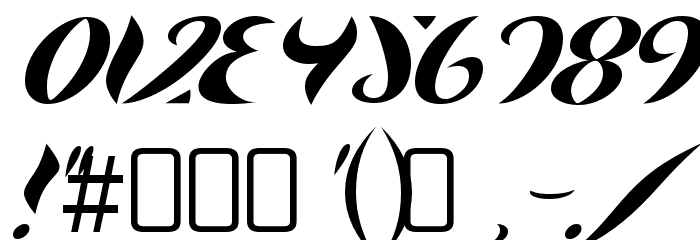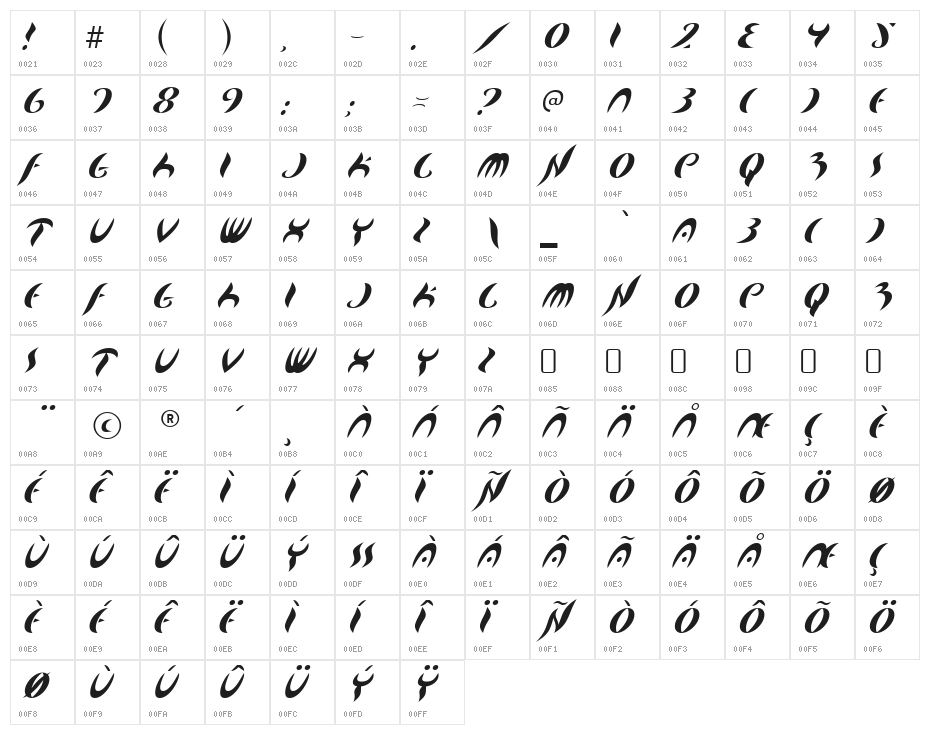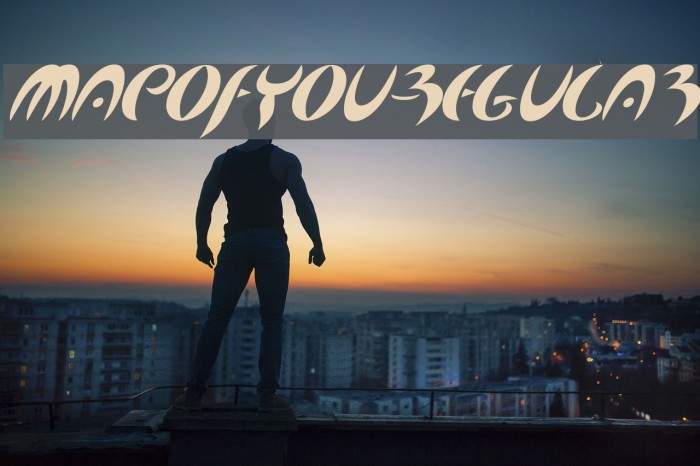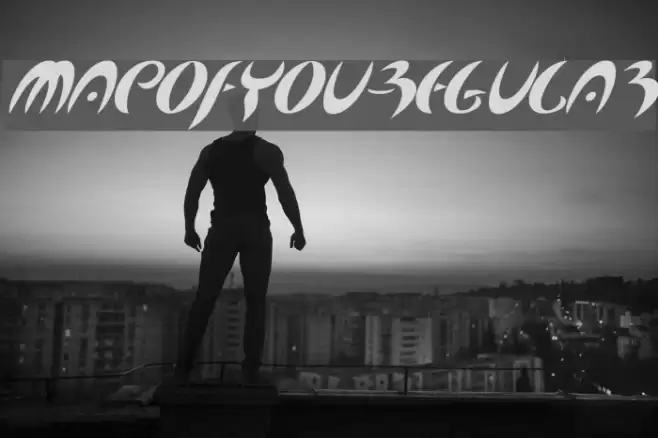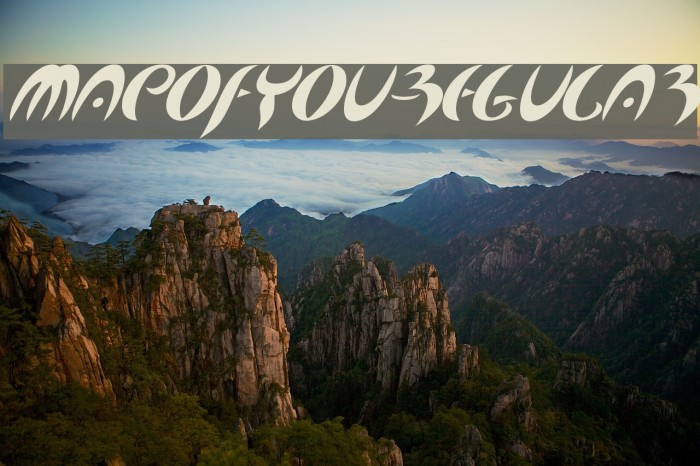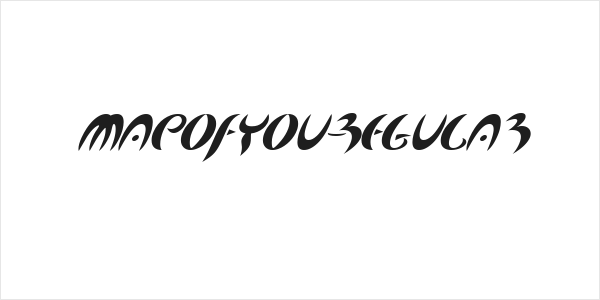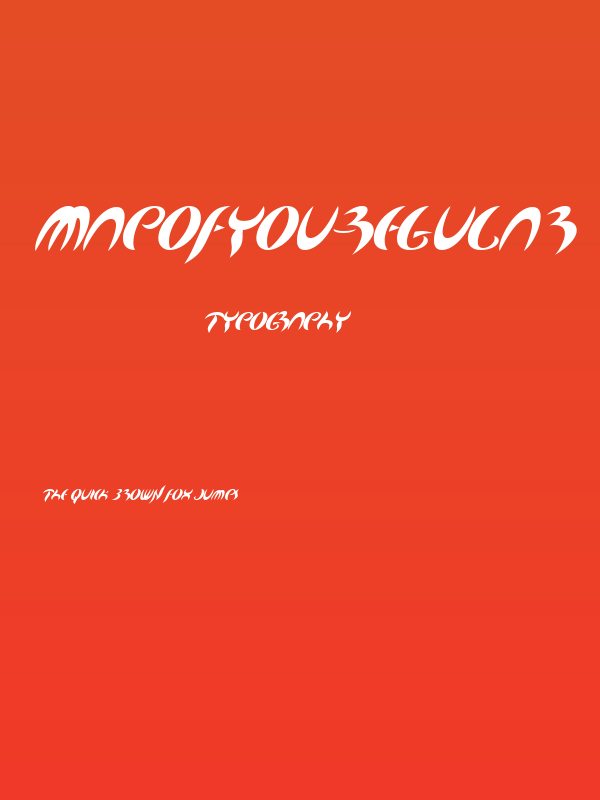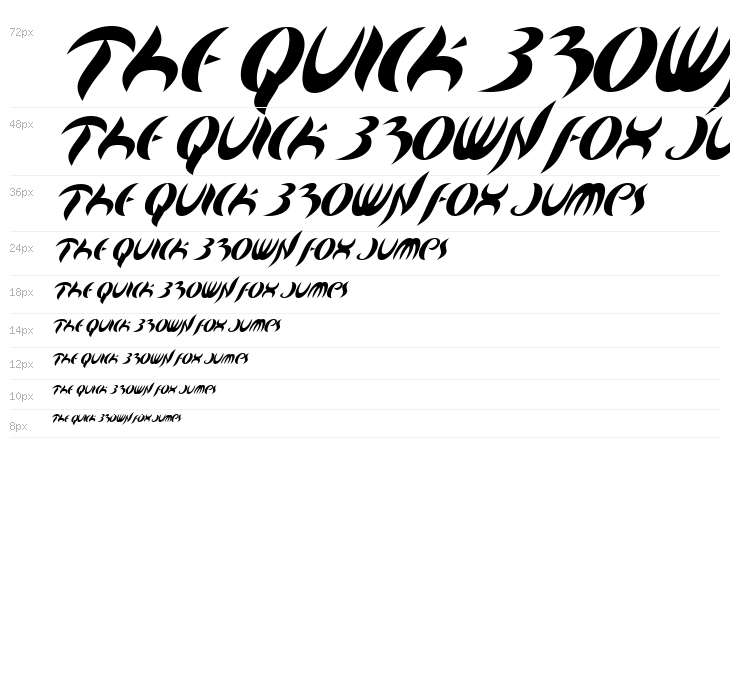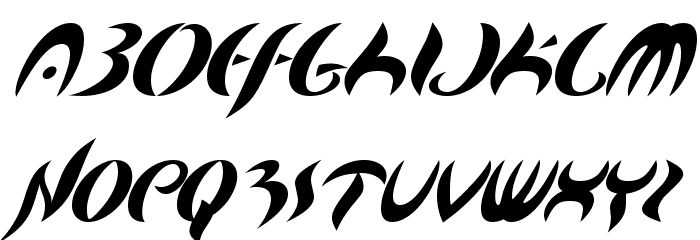
MapofYou-Regular Font
MapofYou-Regular Description
This font features a dynamic and fluid design, characterized by its bold, sweeping strokes and high contrast between thick and thin lines. The letters have a calligraphic flair, with a sense of motion and energy that suggests a modern, artistic style. The uppercase and lowercase letters maintain a consistent flow, while the numerals and special characters integrate seamlessly into the overall aesthetic. The font's unique appearance makes it stand out, with each character exhibiting a distinct personality through its curves and angles.